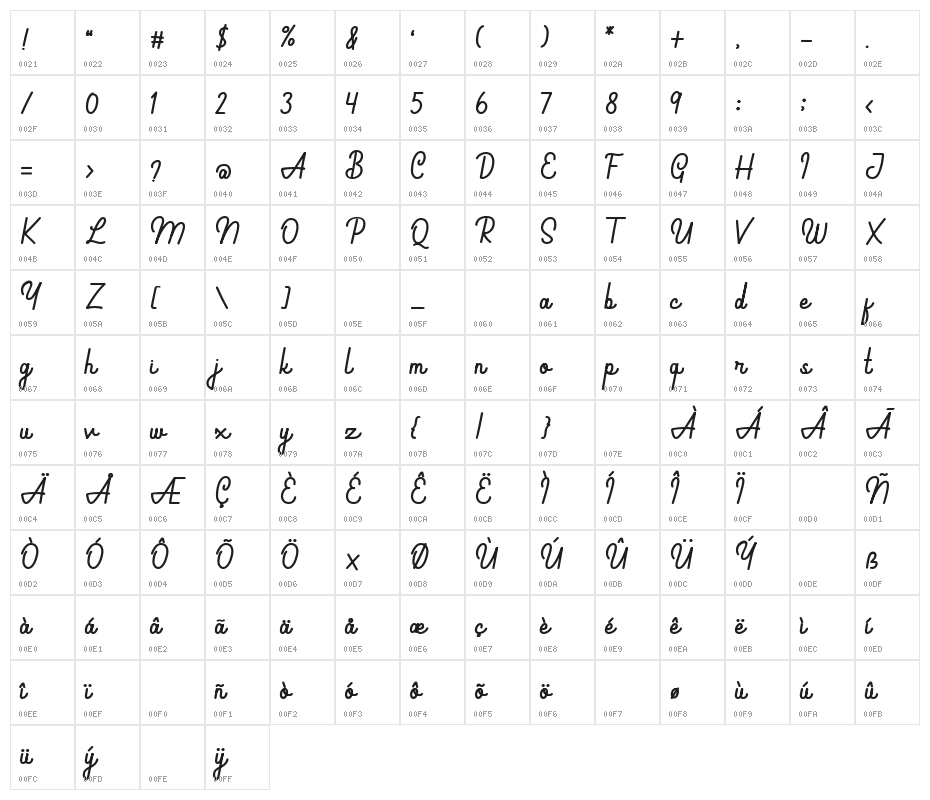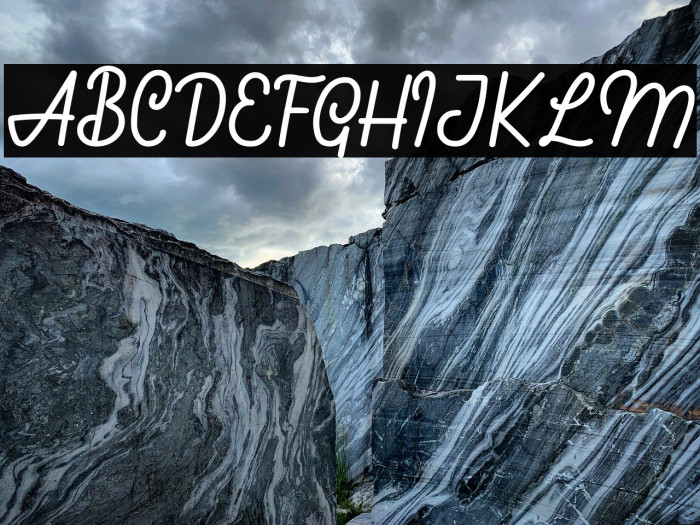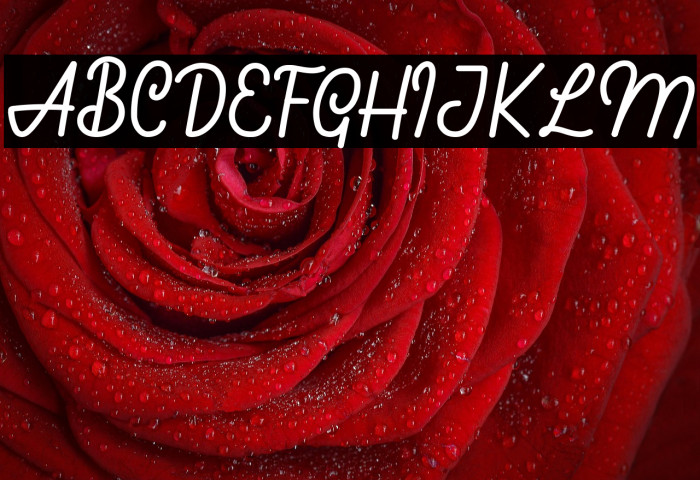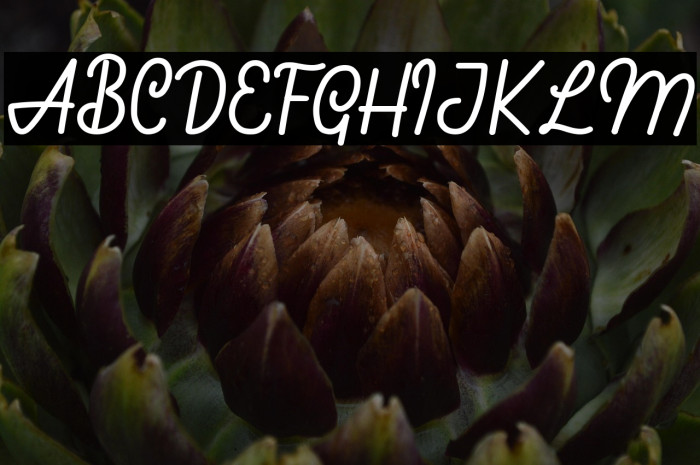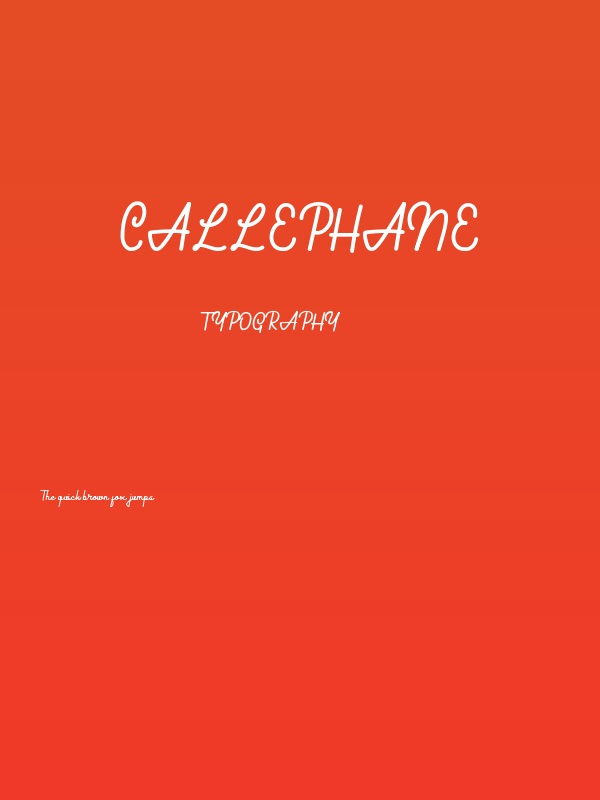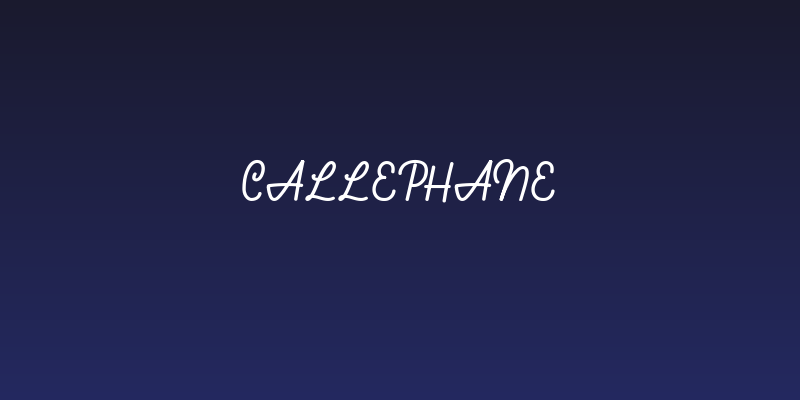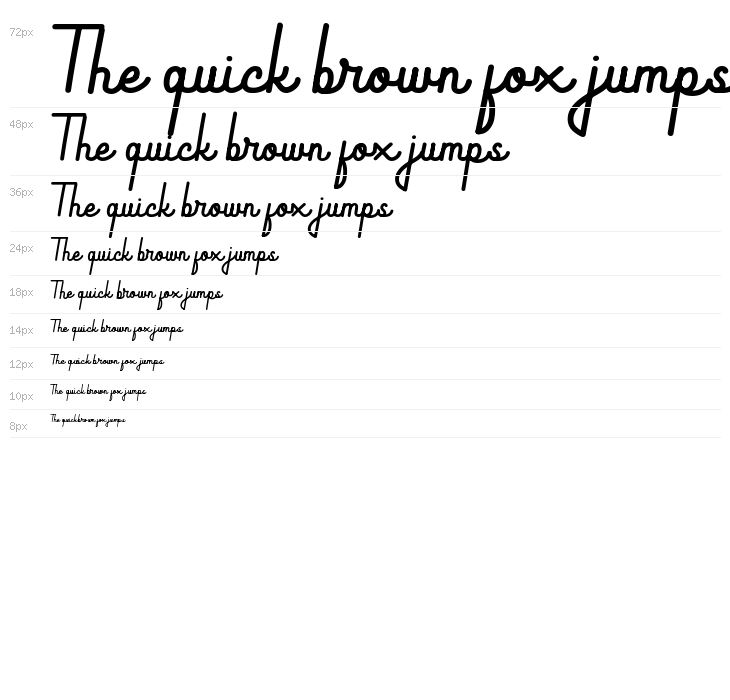
Callephane Font
Callephane Description
This font exhibits a playful and casual script style with a handwritten feel. The uppercase letters are slightly slanted, adding a dynamic flow, while the lowercase letters maintain a consistent baseline, enhancing readability. The strokes are smooth and rounded, giving a friendly and approachable appearance. The numerals are clear and distinct, matching the overall style. Special characters are well-integrated, maintaining the font's cohesive look. The font's design is versatile, suitable for various creative projects that require a personal touch.